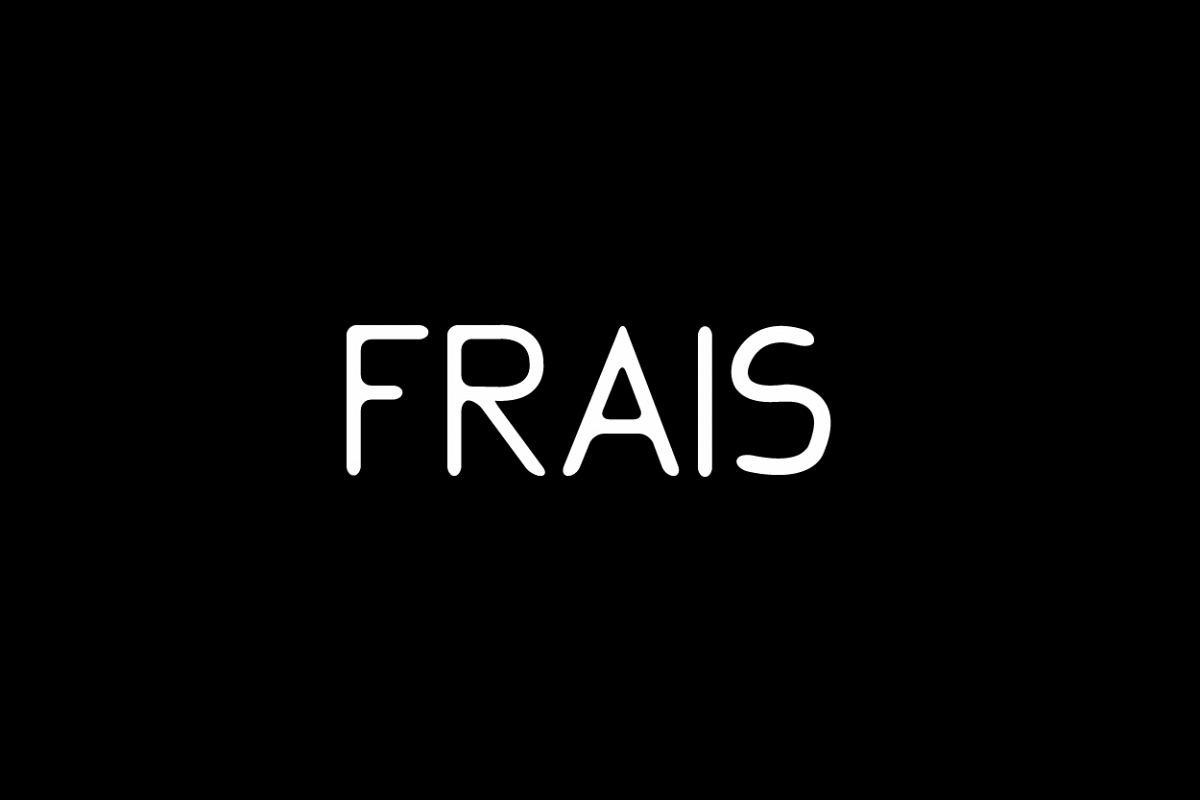
frais
Frais is a typeface with funny style. frais is great for logotype, typography, poster, printed quotes, invitations, cards, product packaging, headers, letterhead, apparel design, label, and etc.
frais comes with uppercase, numerals, punctuation, multilingual characters.
Stylistic Alternate
Ligature